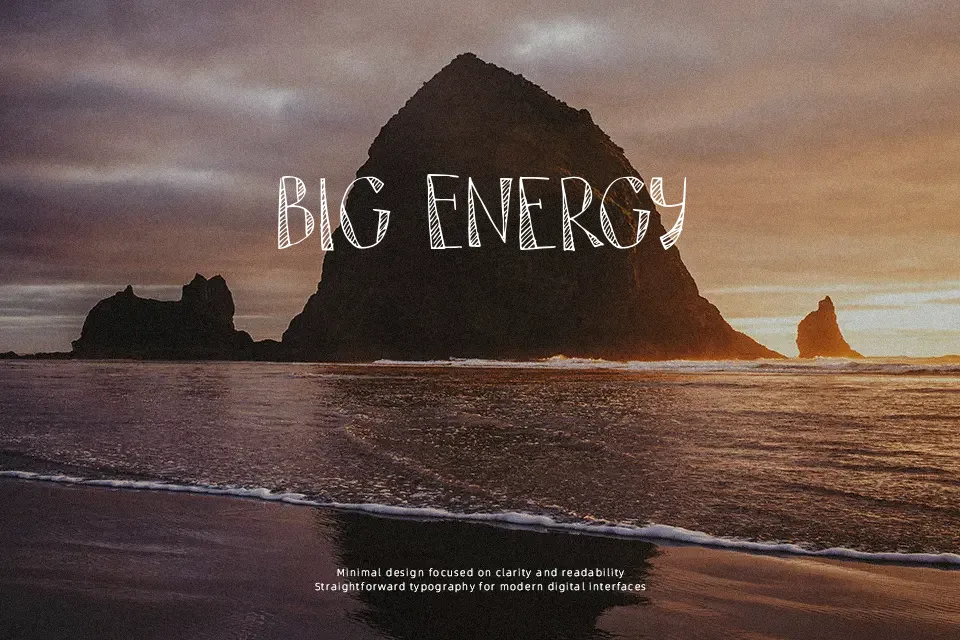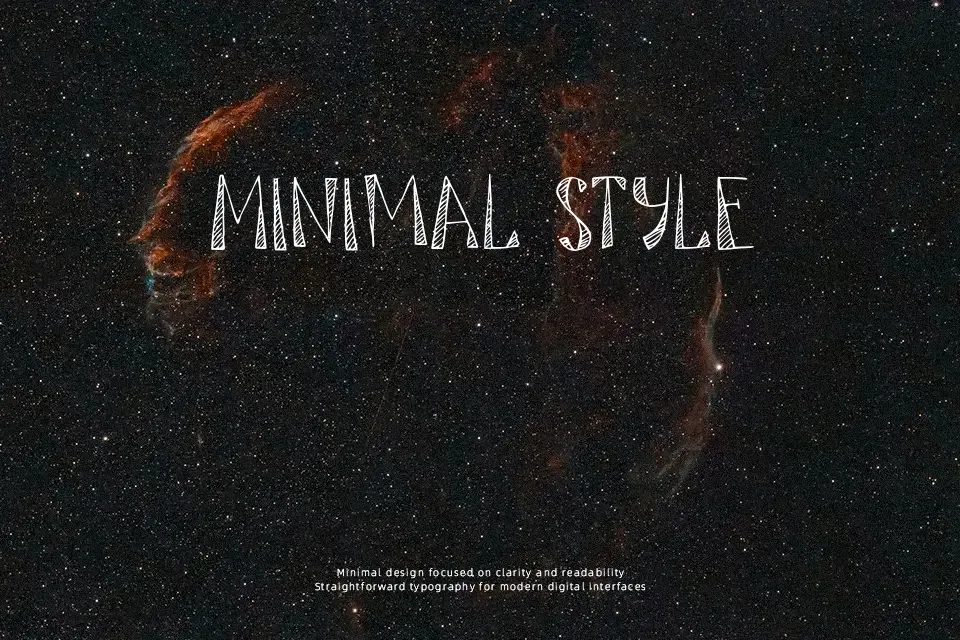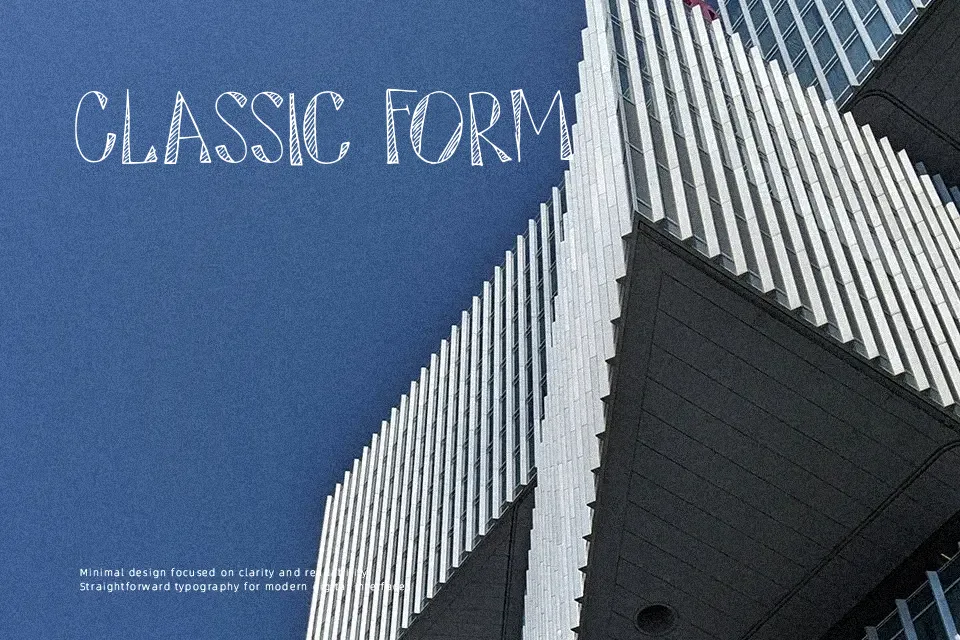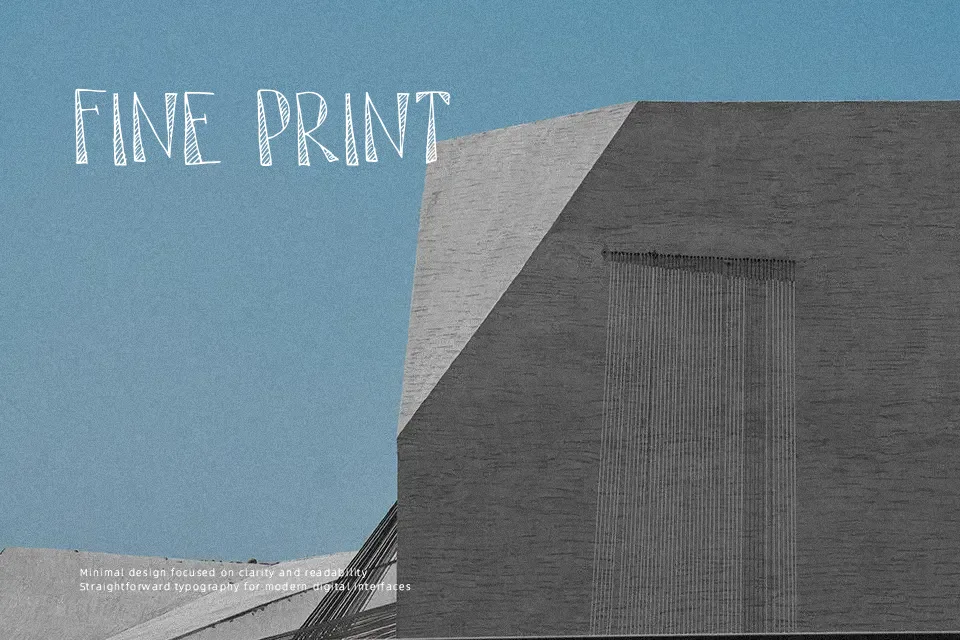
DK Tartufo Font
Designed by David Kerkhoff
DK Tartufo Font is a decorative hand-drawn display face with irregular strokes, loose spacing, and a slightly restless structure that feels made by hand rather than mechanically refined. The texture is casual and artistic, with enough movement to give short words real character. It works nicely on packaging, poster headlines, book covers, and T-shirt graphics where a rough, expressive voice adds charm. I would avoid it for long reading passages, small captions, or interface labels, because the uneven rhythm can become tiring and less clear at reduced sizes. It feels closer to an illustrated marker style than a controlled editorial display face.
packaging titles,poster headlines,book covers,t shirt graphics
body text,small captions,ui labels,formal corporate layouts
Perfect for advertising, headline, and packaging, with a artistic and decorative style.